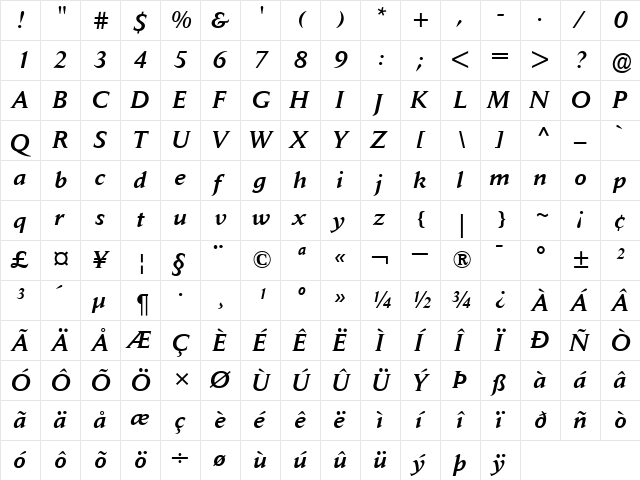
JaegerDailyNews-Medium MediumItalic
Design Context for JaegerDailyNews-Medium Typeface
JaegerDailyNews-Medium takes a measured approach to typography — its balanced proportions and neutral character make it a reliable workhorse for both digital and print work. The slanted form adds forward momentum and visual energy.
Pro Tip: Try JaegerDailyNews-Medium for annotation and caption copy alongside an upright companion — the contrast in angle creates a dynamic but ordered typographic system.